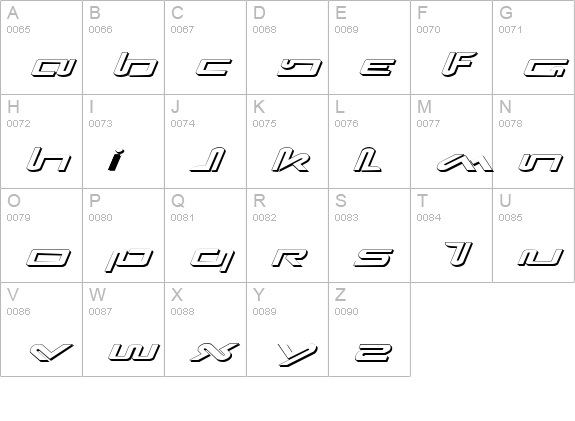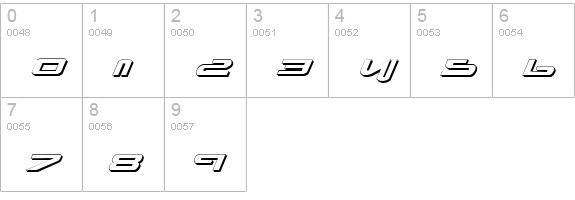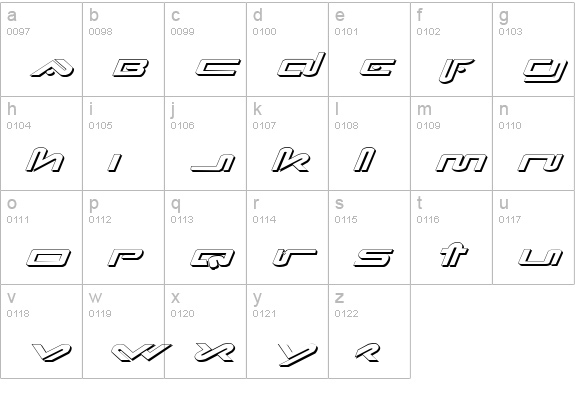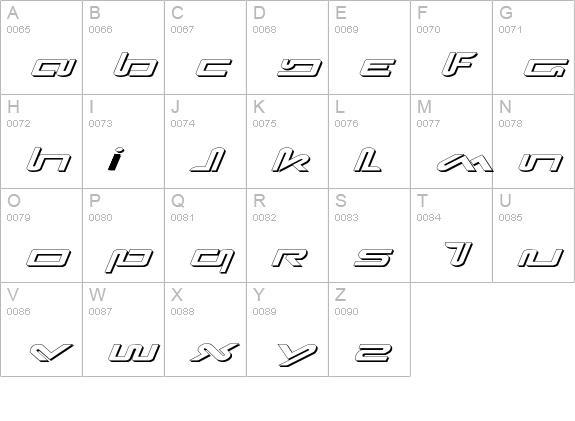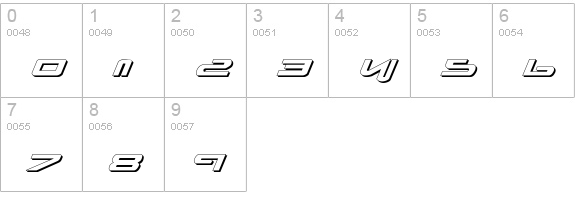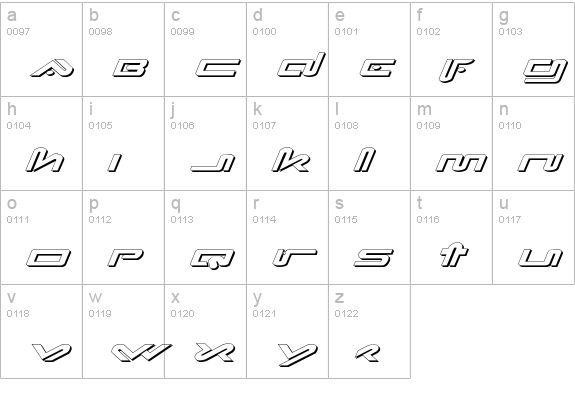
Xephyr Expanded Shadow Italic Font Details
Xephyr Expanded Shadow Italic is a distinctive, extended-width, italic variant in the Xephyr typeface family \xE2\x80\x94 well suited to design and typography projects.
Xephyr Expanded Shadow Italic font is a bold and dynamic typeface that exudes a sense of power and elegance. The striking shadows add depth and dimension to each character, making it perfect for eye-catching designs and headlines. The italicized style gives it a modern and stylish look, adding a touch of sophistication to any project. This versatile font is ideal for a variety of design projects, from posters and flyers to logos and branding. Its expanded width creates a strong visual impact, making a statement wherever it is used. Whether you're designing for print or digital media, Xephyr Expanded Shadow Italic font is sure to stand out and grab attention. And the best part? Xephyr Expanded Shadow Italic font is completely free to download at FontsMarket.com. So go ahead and add this unique and impactful font to your collection today!